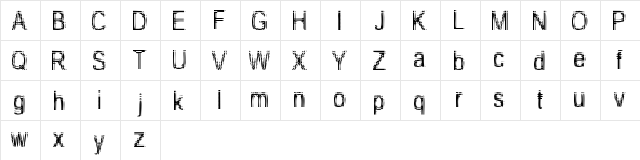
Too Damn Drunk Regular
Design Context for Too Damn Drunk Typeface
Too Damn Drunk takes a measured approach to typography — its balanced proportions and neutral character make it a reliable workhorse for both digital and print work.